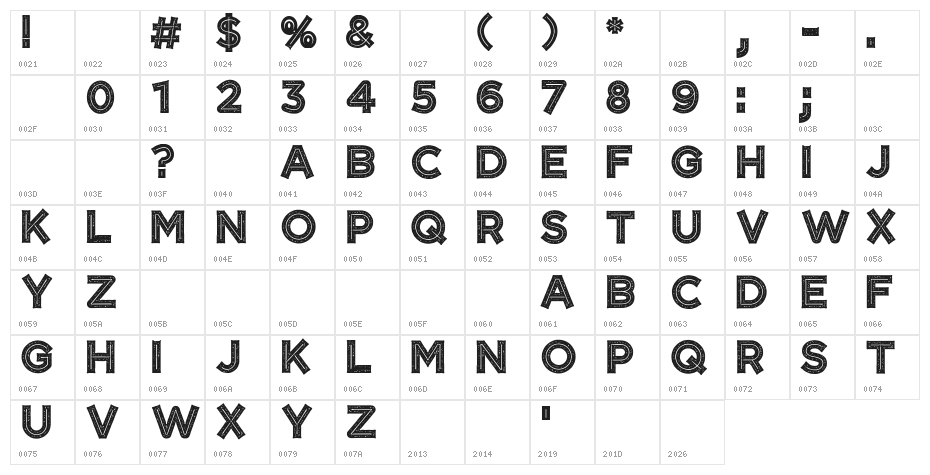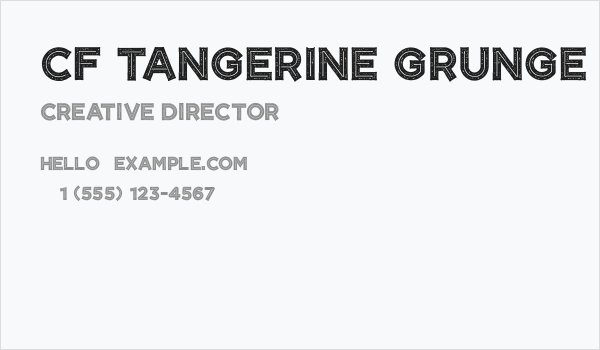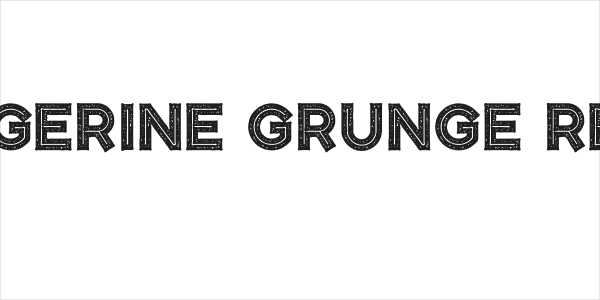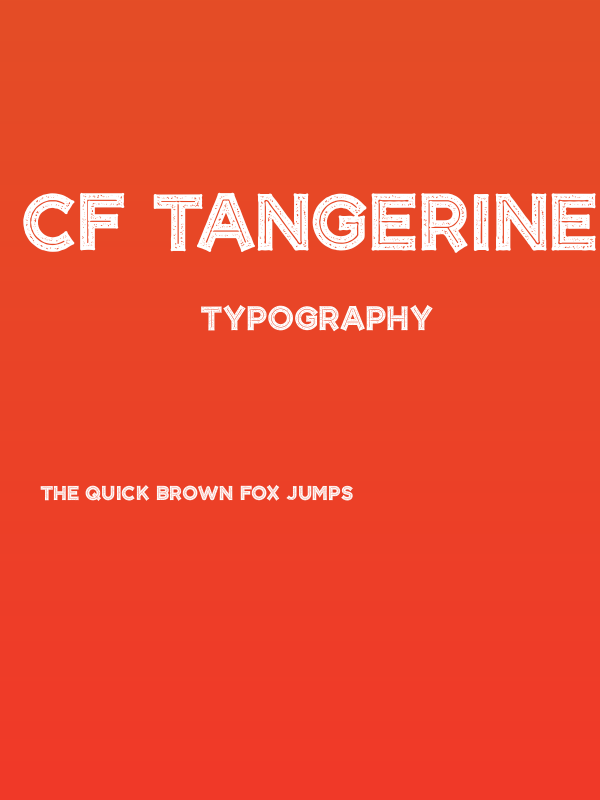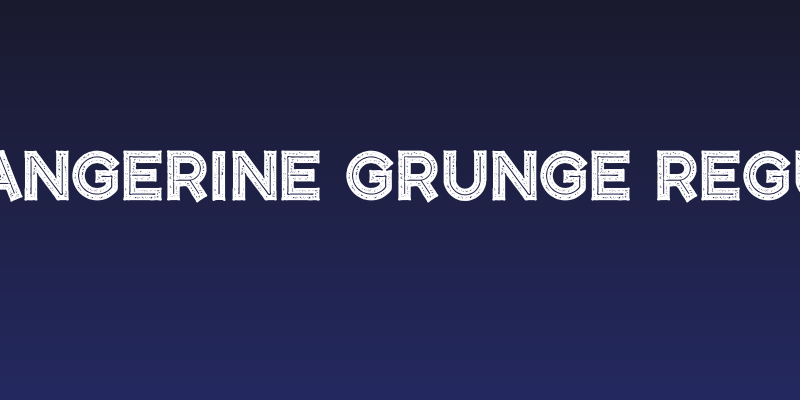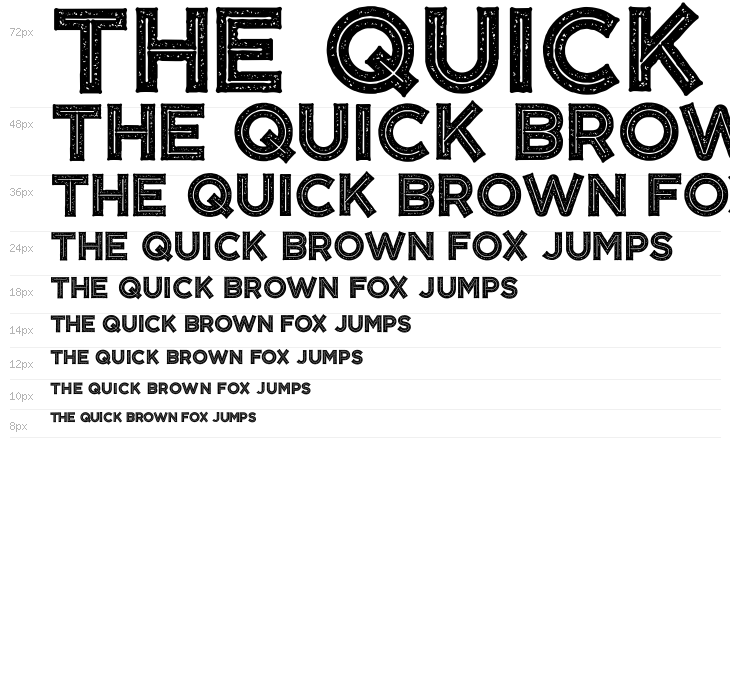
CF Tangerine Grunge Regular Font
CF Tangerine Grunge Regular Description
This font features a bold, decorative style with a grunge texture that gives it a distressed, vintage appearance. The uppercase and lowercase letters are consistent in their rugged design, with a slightly roughened edge that adds character. The numerals and special characters maintain this textured look, making the font suitable for projects that require a touch of edginess or a retro feel. Its bold weight and distinct style make it stand out, while the spacing between characters is normal, ensuring readability. The font's unique aesthetic is perfect for creative projects that aim to capture attention.
| Proposed Projects | Ideal for posters, album covers, branding, and any design needing a bold, vintage touch. |